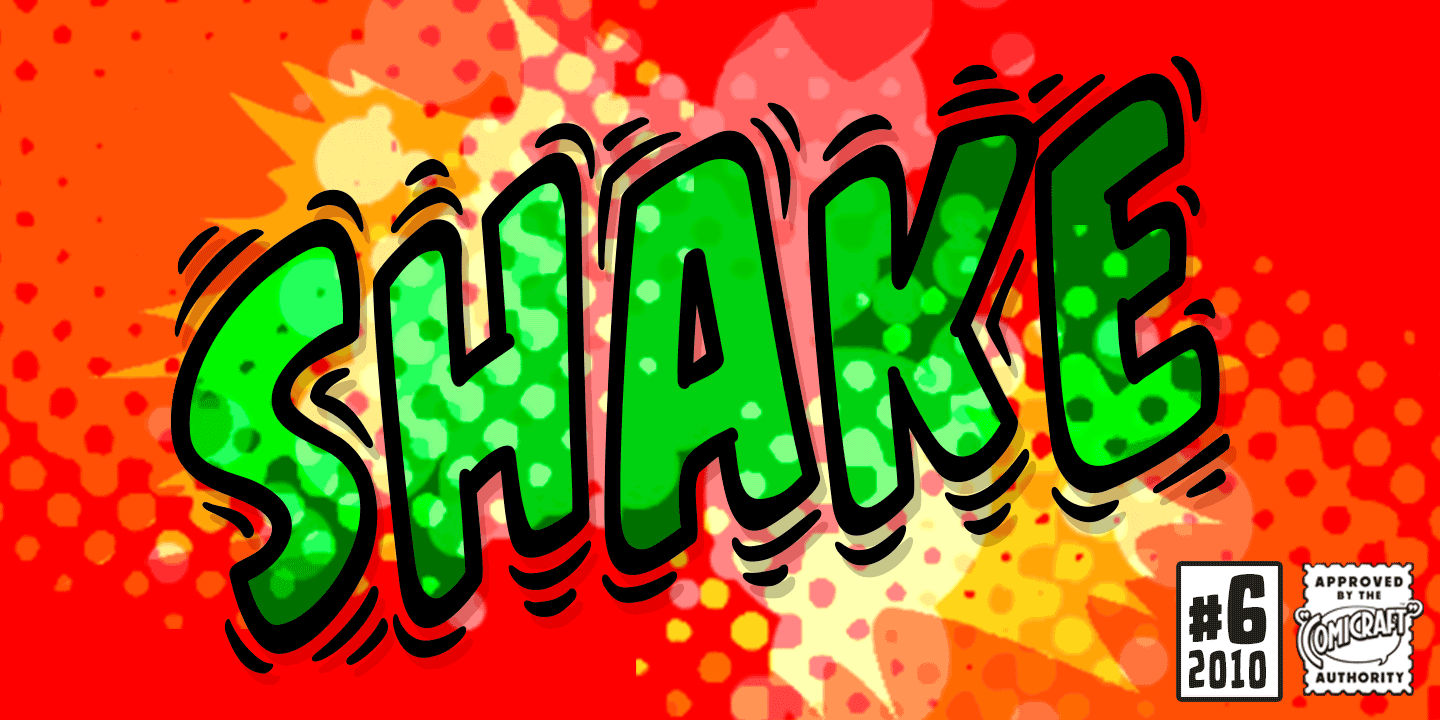
Shake Font is perfect for smoothie bars, milkshake restaurants, health food cafés, protein supplement brands, fitness shake products, dance studios, cocktail lounges, energy drink packaging, vibrant juice bars, and dynamic movement-inspired designs.
Shake Font is exciting because it vibrates with kinetic energy and dynamic movement through animated letterforms that capture the rhythmic motion of shaking and the energetic vitality of active lifestyles, making it perfect for brands celebrating movement, energy, and the invigorating power of dynamic action.
The Shake Font family includes regular and bold weights with movement alternates, energy-inspired ornaments, and dynamic decorative elements, providing designers with vibrant tools for creating typography that moves with authentic kinetic spirit and energetic enthusiasm.
When your project needs dynamic energy and movement appeal, Shake Font Free Download provides the perfect typographic motion for energetic communications. This vibrant display typeface combines kinetic aesthetics with contemporary functionality, ensuring your brands resonate with audiences seeking genuine energy and dynamic experiences. The animated letterforms and movement-inspired styling make this font an essential choice for fitness brands, beverage companies, and any application where dynamic energy, kinetic movement, and vibrant vitality are crucial for creating memorable experiences that celebrate the power of motion and the infectious energy that comes from active living and the rhythmic pulse of life in constant, joyful movement that inspires others to embrace the dynamic spirit of healthy, energetic lifestyle choices.